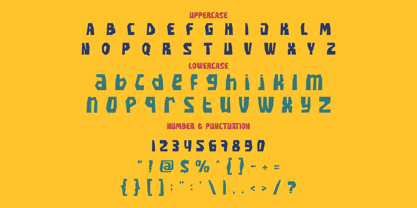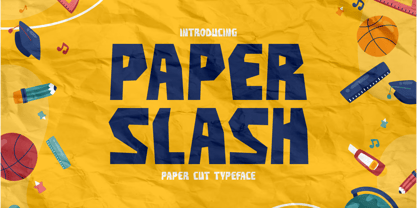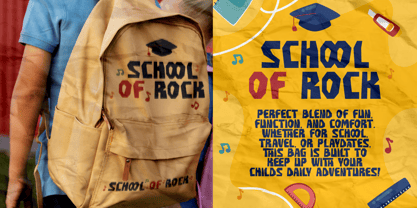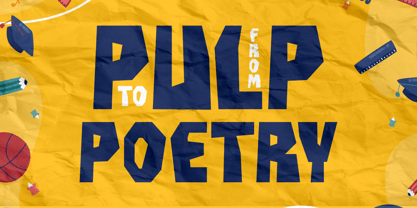
Paper Slash
by Shanaf
The Paper Slash Font Family was designed by Yesie Erma Yunita and published by Shanaf. Paper Slash contains 1 styles.
Introducing Paper Slash - Paper Cut Typeface, a fun, bold, and uniquely handcrafted font that brings the charm of cut-out paper letters to your designs. This playful display font features sharp, irregular edges that mimic hand-cut paper shapes, creating a dynamic and energetic feel. The blocky, bold letterforms ensure maximum readability while still maintaining an organic, handmade touch. Set against a vibrant yellow crumpled paper background, the deep blue typography pops with a striking contrast, reinforcing the crafty, DIY aesthetic. The surrounding school-themed elements, including pencils, rulers, basketballs, and books, make this font perfect for educational materials, children’s products, and creative branding projects. Whether you’re designing for posters, book covers, stickers, or packaging, Paper Slash adds a fresh and engaging visual appeal.
Perfect for kids' designs, classroom projects, or branding with a quirky personality, Paper Slash embodies fun, creativity, and spontaneity. Its cutout-style appearance makes it a fantastic choice for crafting projects, handmade greeting cards, or playful logos. The font’s strong yet irregular geometric shapes provide a sense of movement and energy, making it ideal for DIY-themed designs, paper art projects, and bold social media graphics. The soft, slightly rugged texture mimics real paper cutting, bringing an authentic and tangible feel to digital creations. Whether you're working on a children's book cover, a scrapbooking project, or a fun marketing campaign, Paper Slash is your go-to font for a lively, handcrafted look.